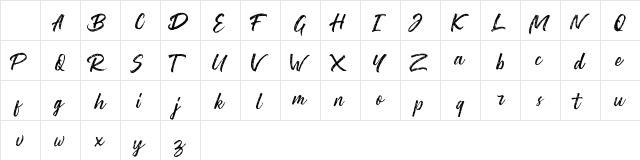
Complete Washington ~ Rough Script DEMO Regular glyph index. Displaying only characters natively supported by Washington ~ Rough Script DEMO Regular font.
Washington ~ Rough Script DEMO embraces imperfection - its rough, textured character adds raw authenticity to designs that want to feel lived-in and unconventional.
Pro Tip: Use Washington ~ Rough Script DEMO at larger sizes where the texture and irregularity of each letterform can be clearly seen - it loses its character at small sizes.